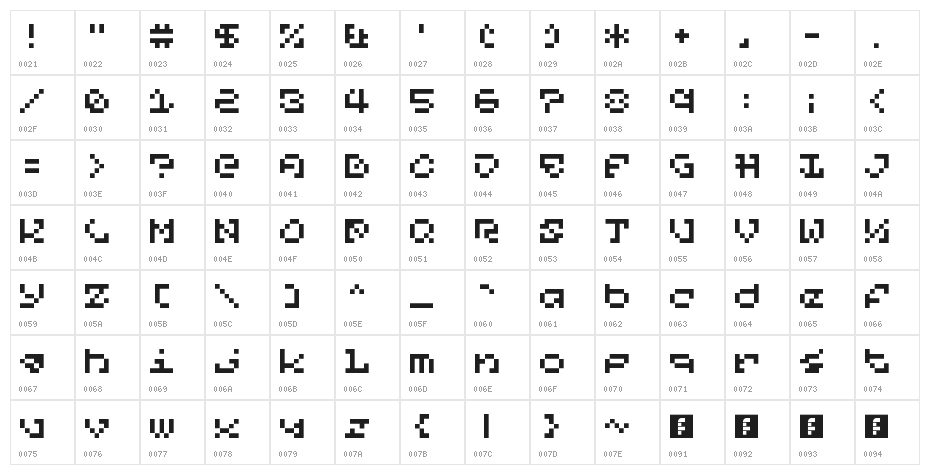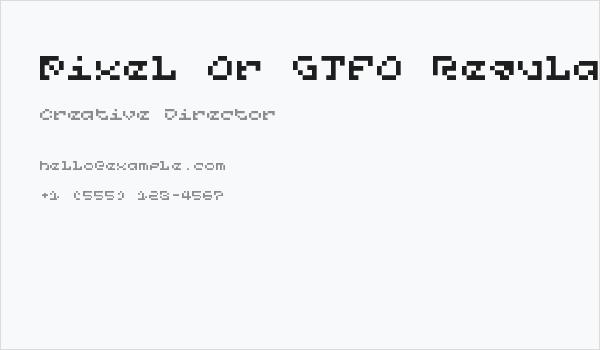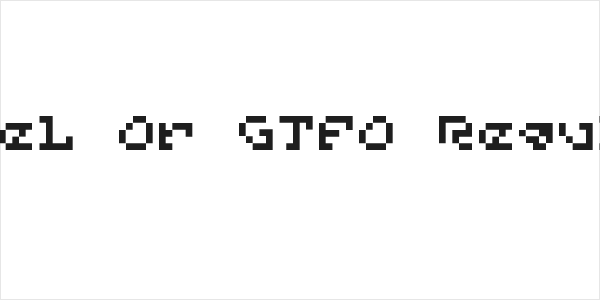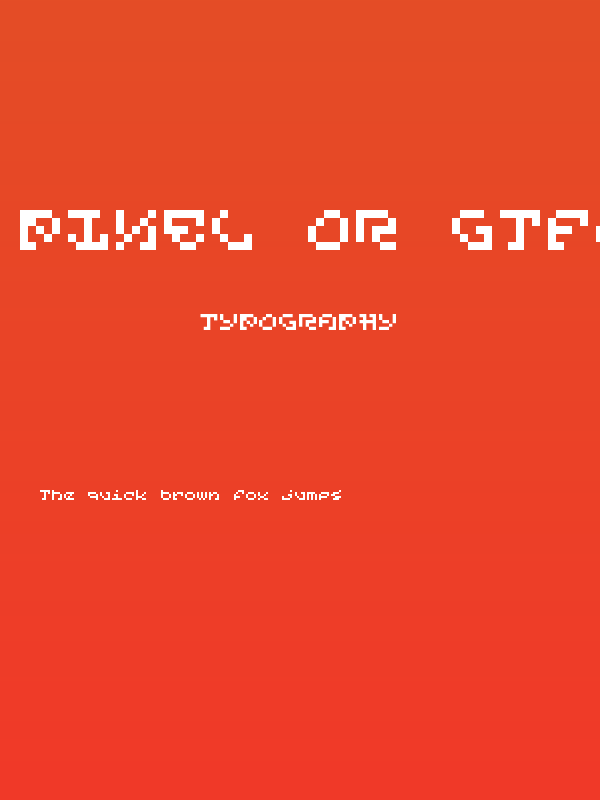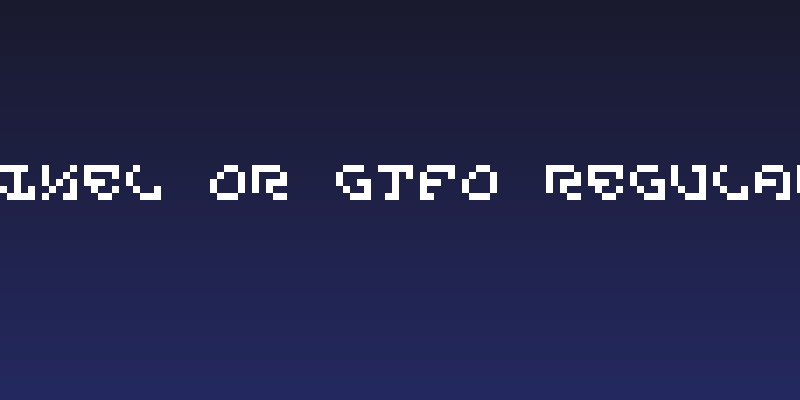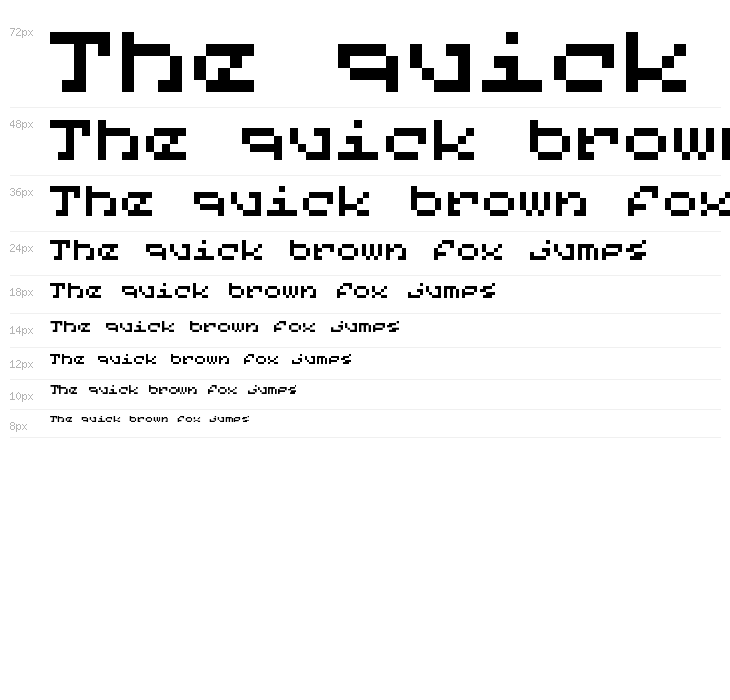
Pixel Or GTFO Regular Font
Pixel Or GTFO Regular Description
This font features a pixelated design reminiscent of early digital displays and retro video games. Each character is constructed with a blocky, grid-like appearance, giving it a distinctly digital aesthetic. The uppercase and lowercase letters maintain a consistent pixel structure, creating a uniform look across the alphabet. Numbers and special characters follow the same pixelated style, ensuring cohesion throughout. This font's nostalgic charm and simplicity make it ideal for projects that aim to evoke a sense of vintage digital technology or gaming culture.
| Use Case | Logos, Headlines, Digital Art |
| Proposed Projects | Ideal for retro video game designs, digital art projects, tech-themed posters, and nostalgic branding. |